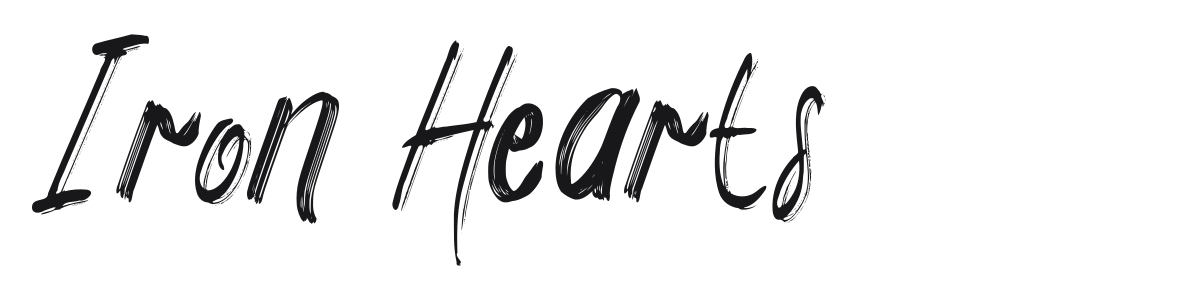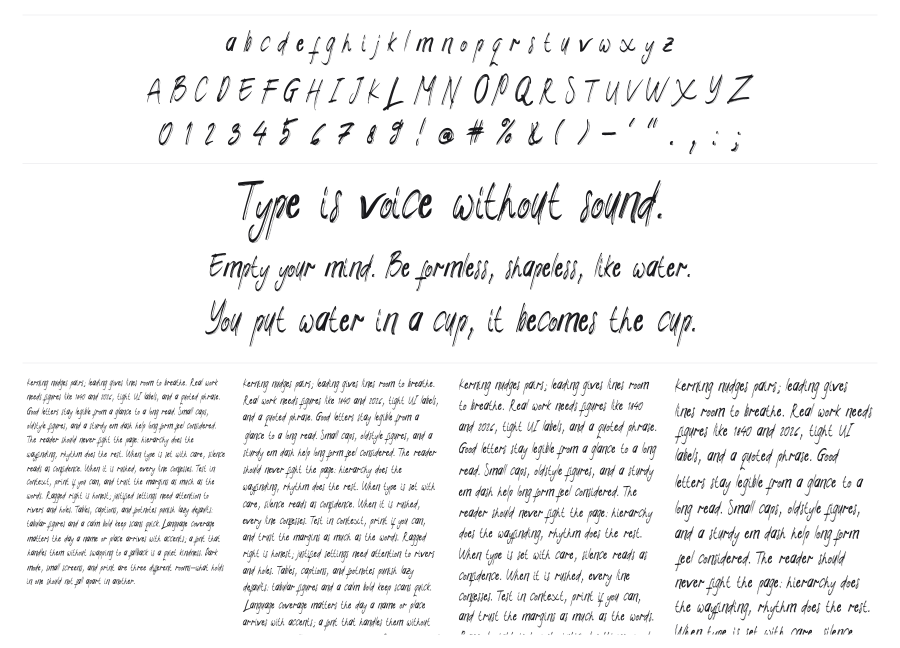
Iron Hearts
by Daffa Syarif
Iron Hearts is a rough brush script with fast, expressive strokes and heavy dry-brush texture throughout. The strongly italic flow and irregular ink marks give it a genuinely handmade quality that avoids the over-polished feel of most digital brush fonts. Works well at large sizes where the texture reads clearly.